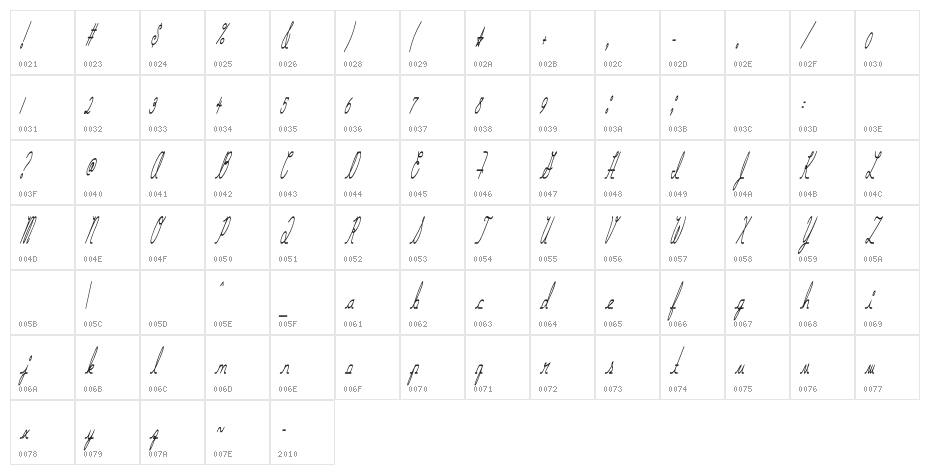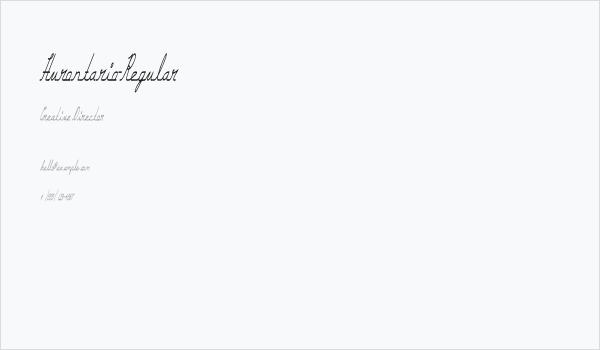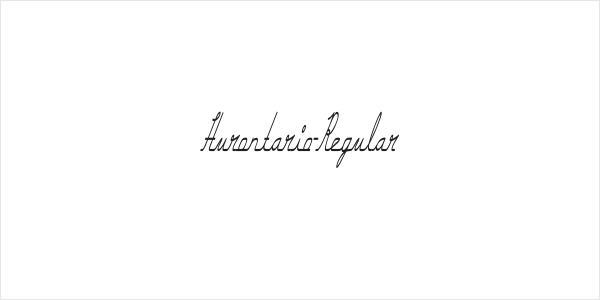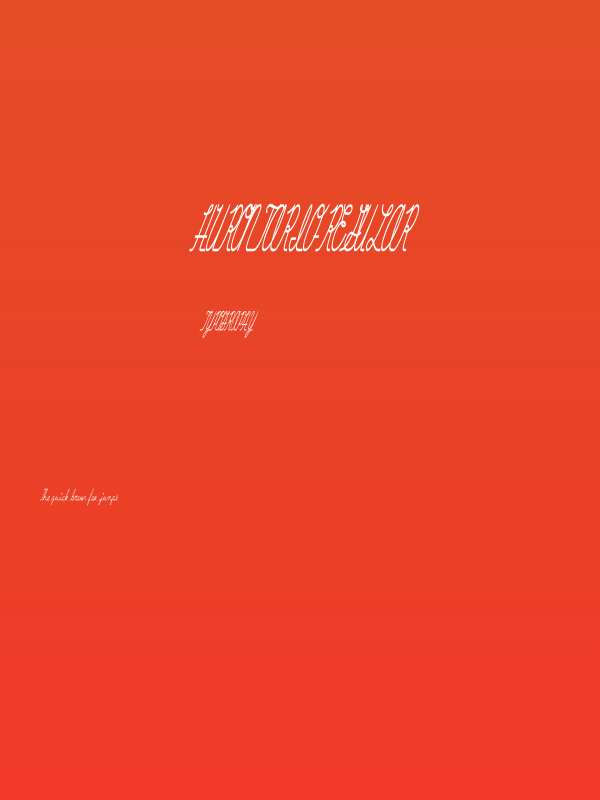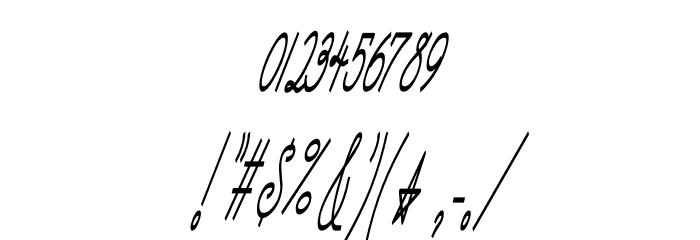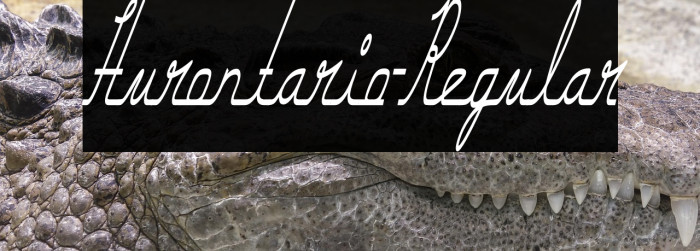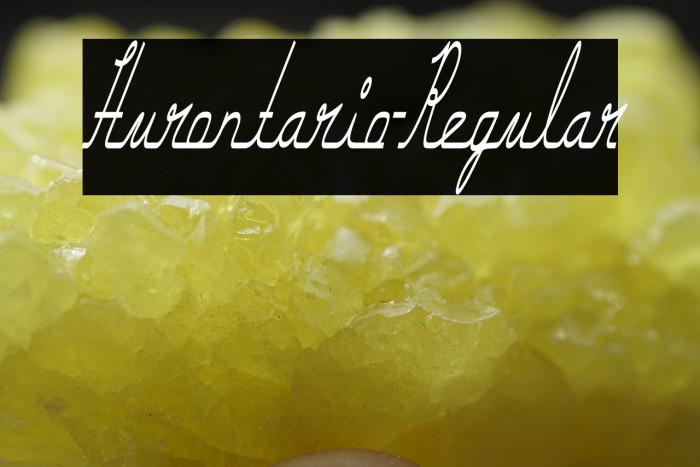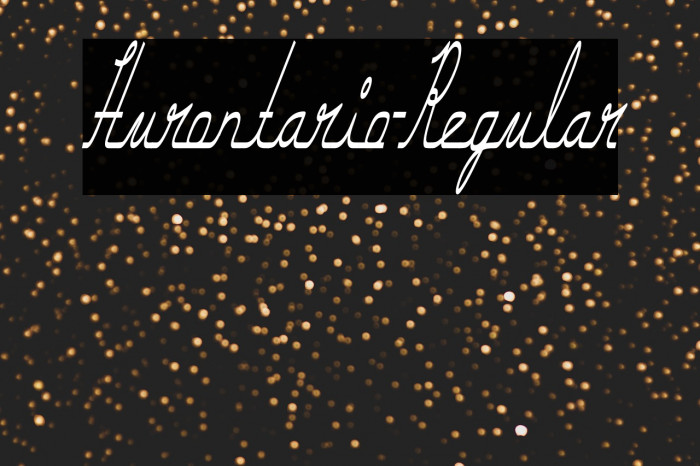
Hurontario-Regular Font
Hurontario-Regular Description
This font features a flowing, cursive style that mimics elegant handwriting. The characters are interconnected, creating a seamless and continuous script. The uppercase letters are tall and slender, with graceful loops and curves, while the lowercase letters maintain a consistent flow with subtle variations in stroke width. The numerals and special characters are crafted to match the overall aesthetic, adding a touch of sophistication. The font's design is reminiscent of traditional calligraphy, offering a classic yet modern appeal.